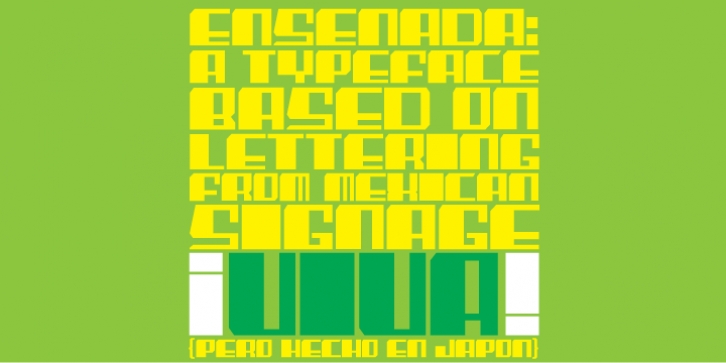
Ensenada is a typeface designed based on hand-cut lettering that adorns businesses throughout the city of Ensenada in Baja California in Mexico.
- What was the inspiration for designing the font? Looking at the hand-cut lettering in Ensenada, Mexico. Variations on this type of lettering are often used by Mexican pop-techno acts.
- What are its main characteristics and features? It is a geometric display face that works in both retro and futuristic settings.
- Usage recommendations: Display type